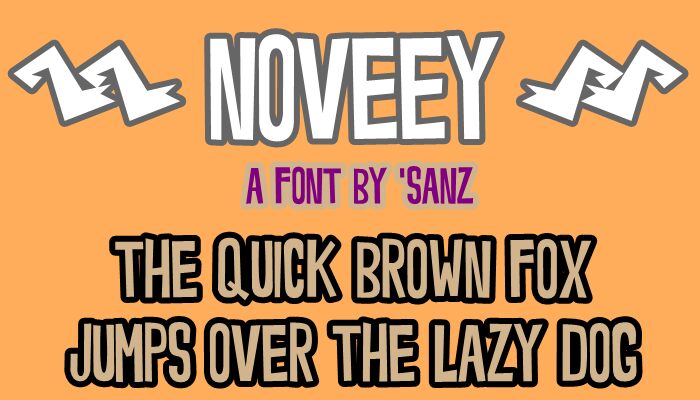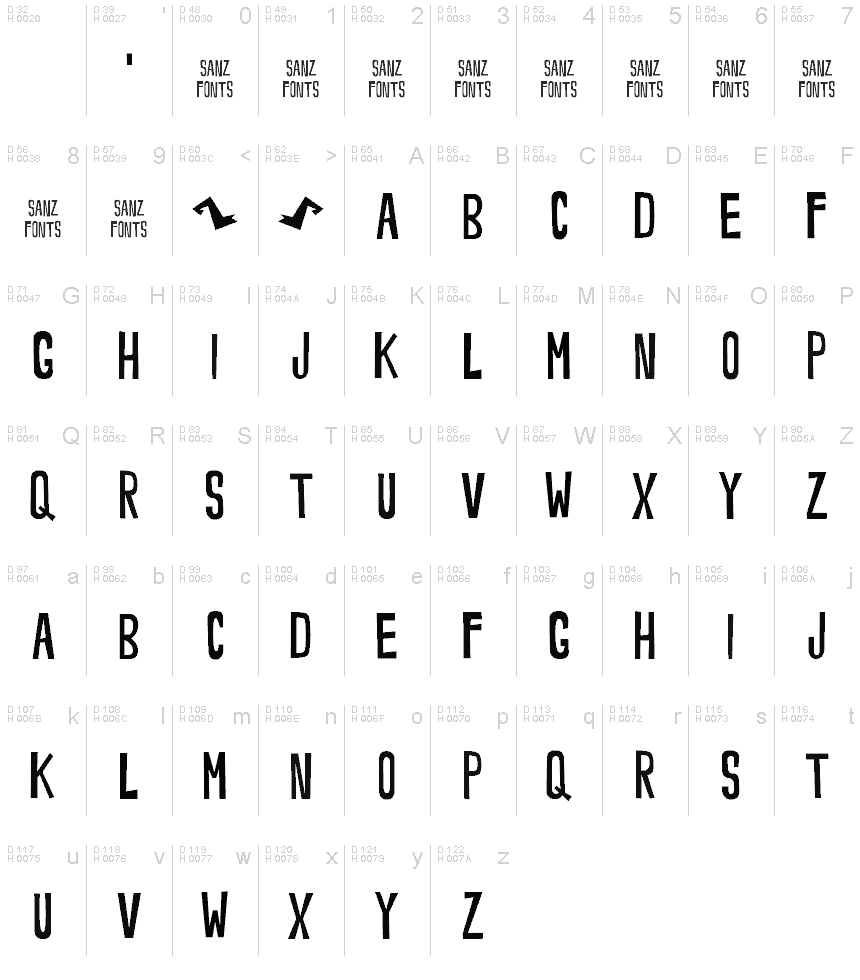
Noveey Thin
Noveey Thin is a dynamic, comic-styled font that exudes a playful yet sophisticated charm. Designed by Sanz d'Cloudz, this condensed display font captivates with its striking, angular letterforms and a unique visual flair. The thin strokes and angular edges create an impactful, eye-catching aesthetic, making Noveey Thin an ideal choice for bold headings, titles, and branding elements.
Its versatile nature allows it to seamlessly integrate into a wide range of design contexts, from modern websites and digital interfaces to vibrant print materials and packaging. This font's distinctive character and style can elevate the visual impact of any project, adding a touch of whimsy and personality to the overall design.